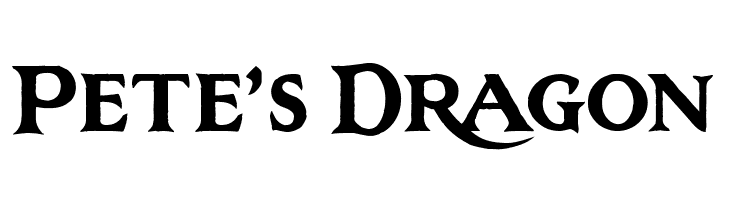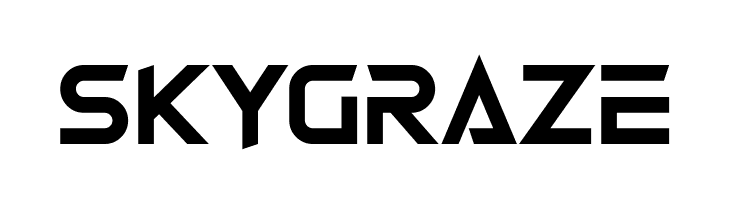
A bold, medieval-inspired font with decorative swashes and sharp serifs.
A modern, geometric font with tall, narrow characters and consistent stroke width.
A bold, 3D font with a halftone texture and dynamic tilt.
A bold, geometric font with a futuristic, digital style.
A modern, flowing script font with dynamic angularity and smooth curves.
A bold, angular font with a lightning-like, energetic design.